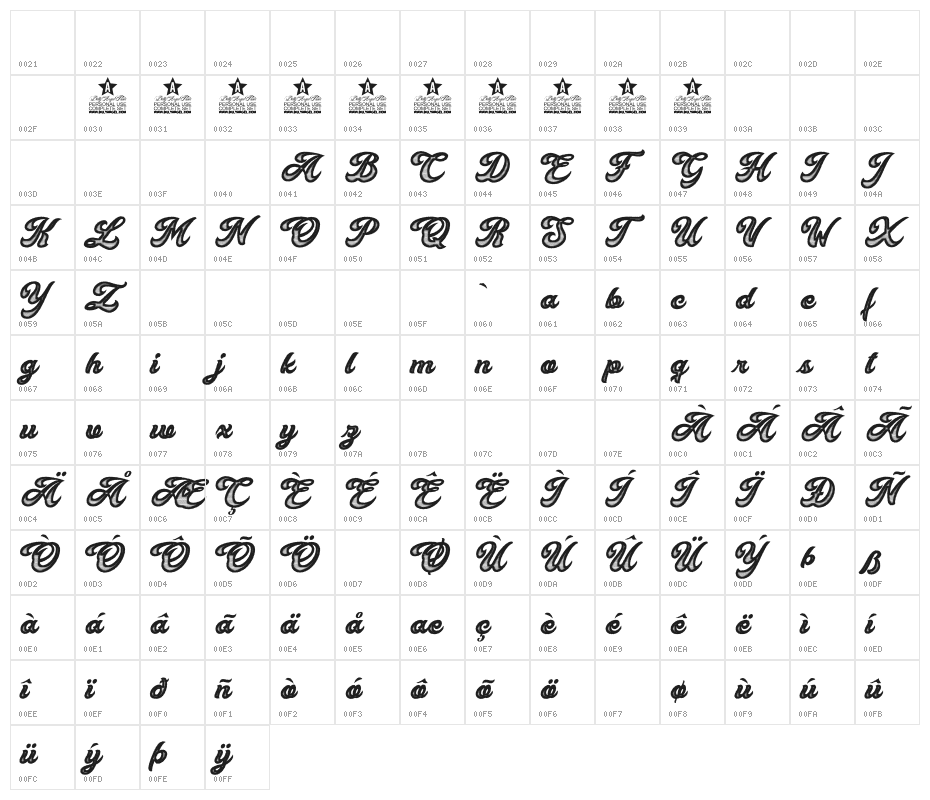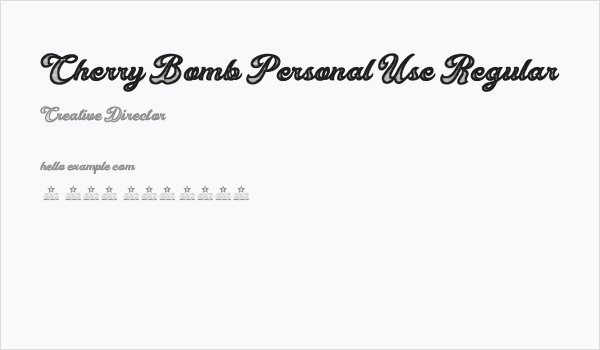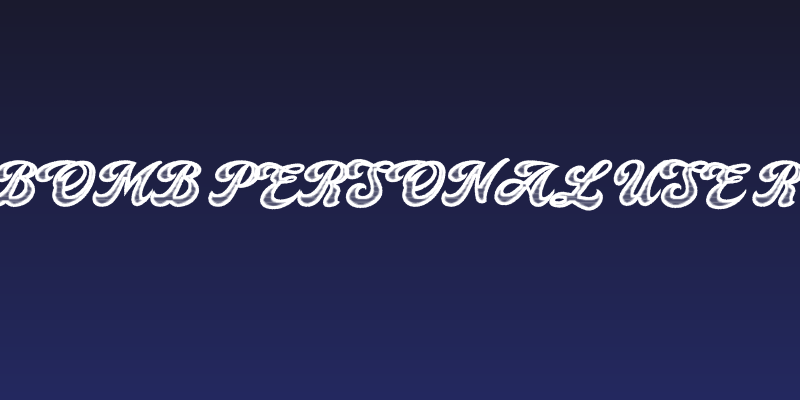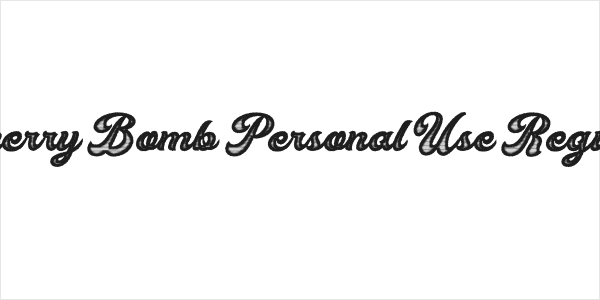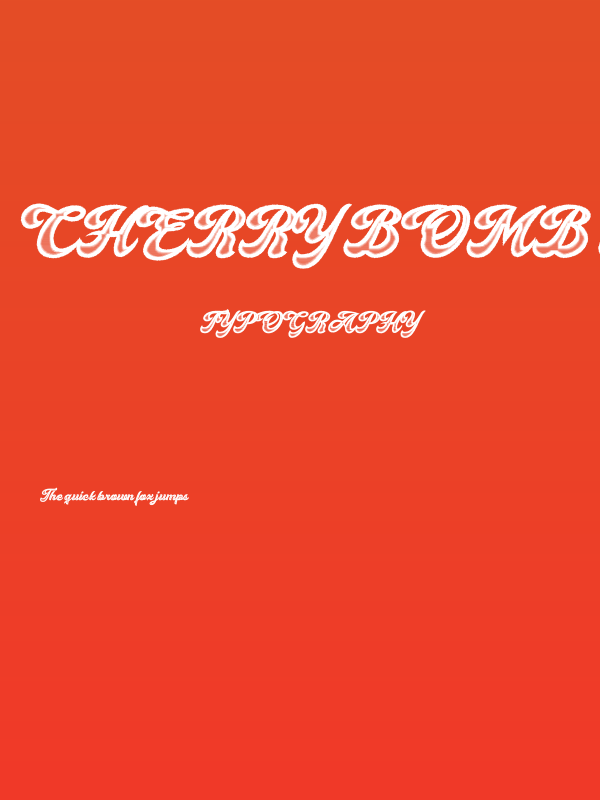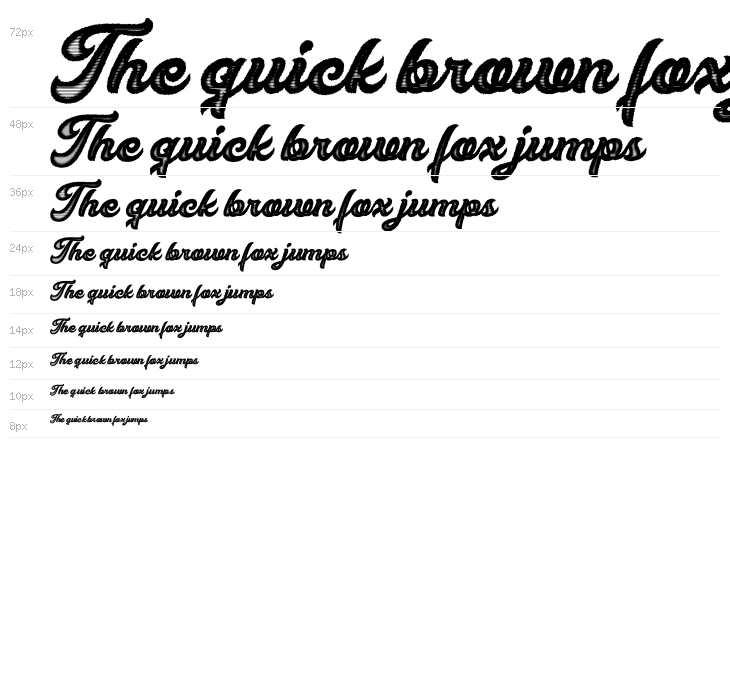
Cherry Bomb Personal Use Regular Font
Cherry Bomb Personal Use Regular Description
This font features a bold, energetic script style with a playful and dynamic appearance. The letters are interconnected, giving it a flowing and cohesive look. The strokes are thick and consistent, with a slight slant that adds to its lively character. The uppercase letters are ornate and slightly larger than the lowercase, which are more rounded and compact. The font includes a full set of uppercase and lowercase letters, numbers, and a selection of special characters. Its design is reminiscent of retro or vintage styles, making it suitable for creative and eye-catching designs.
| Proposed Projects | Ideal for branding, posters, invitations, and any project requiring a lively and retro aesthetic. |